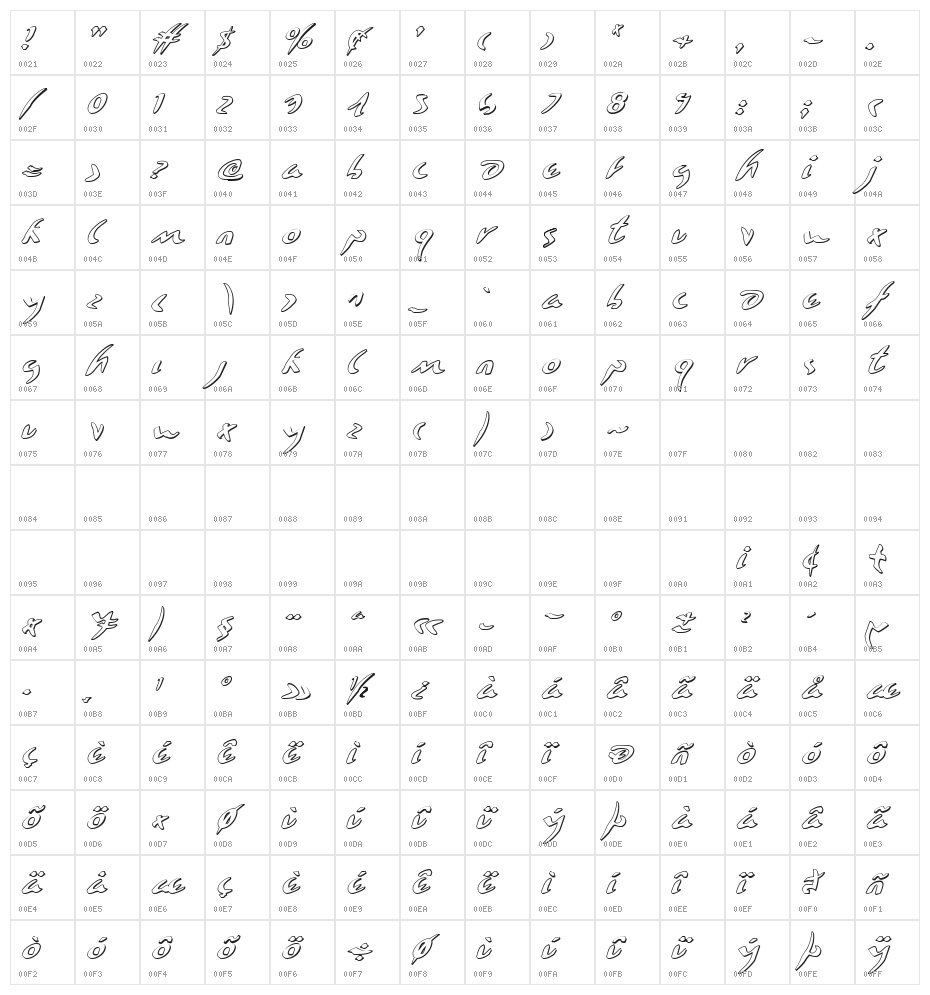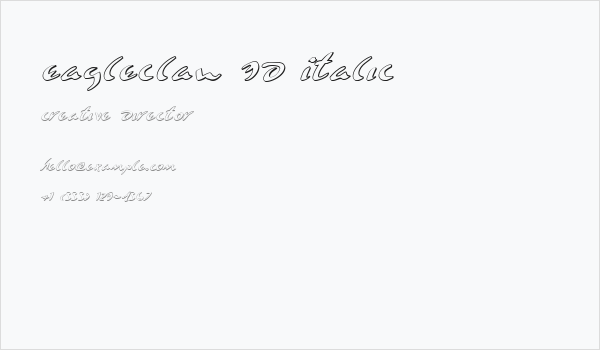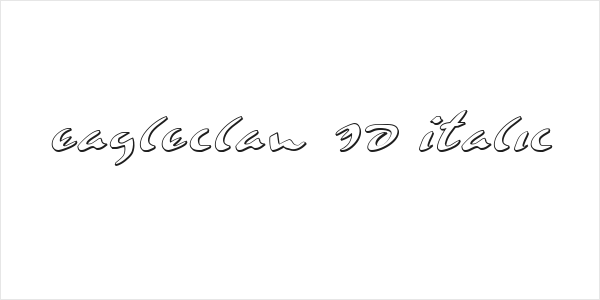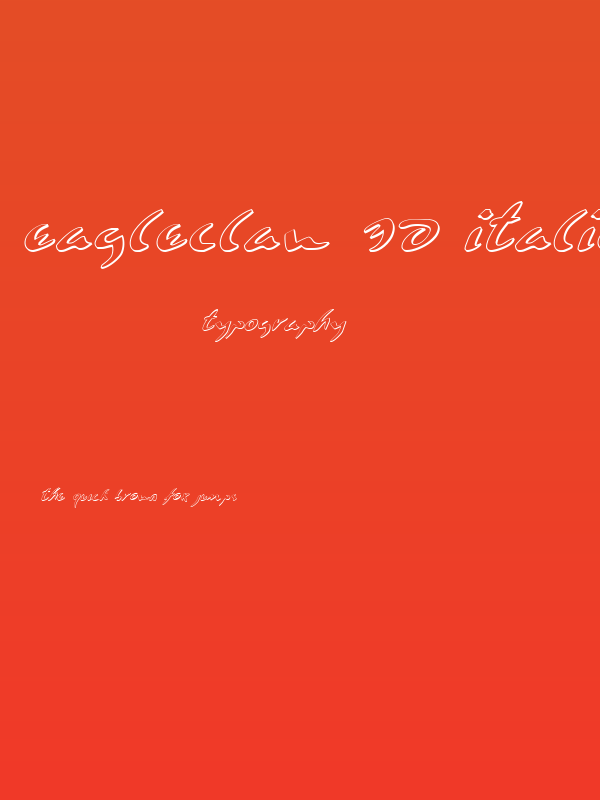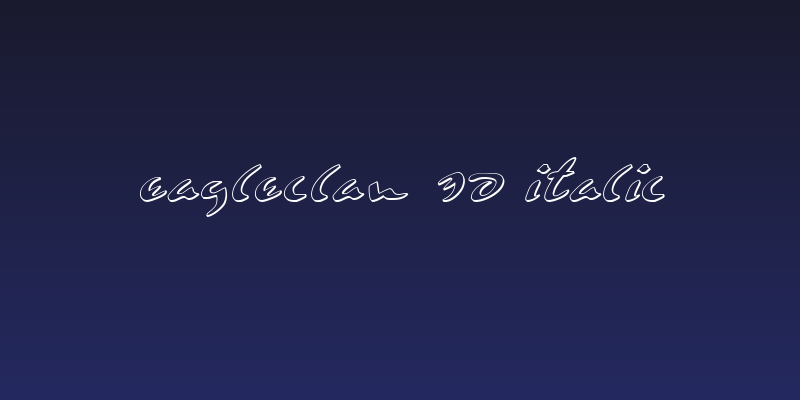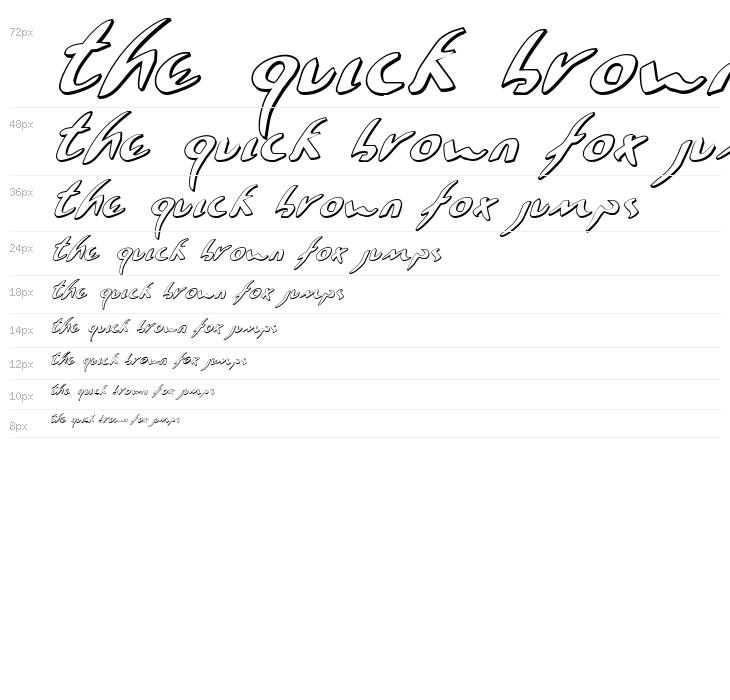
Eagleclaw 3D Italic Font
Eagleclaw 3D Italic Description
This font features a dynamic and energetic design with a 3D italic style that gives it a sense of movement and depth. The characters are bold and slightly slanted, creating a forward-leaning appearance that suggests speed and agility. The strokes are smooth and flowing, with a consistent thickness that adds to the font's modern and sleek look. The uppercase and lowercase letters maintain a cohesive style, while the numerals and special characters complement the overall aesthetic. This font is ideal for projects that require a bold and eye-catching display, such as posters, logos, and headlines.
| Proposed Projects | Ideal for posters, logos, headlines, and any project needing a bold, eye-catching display. |